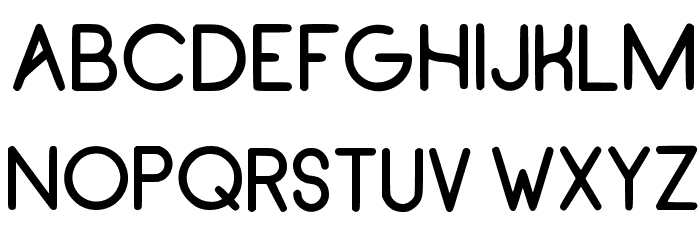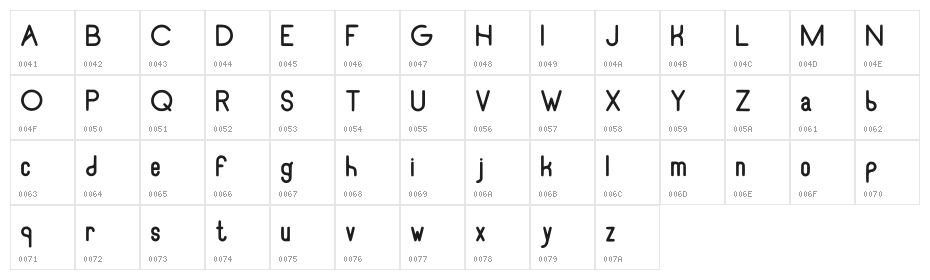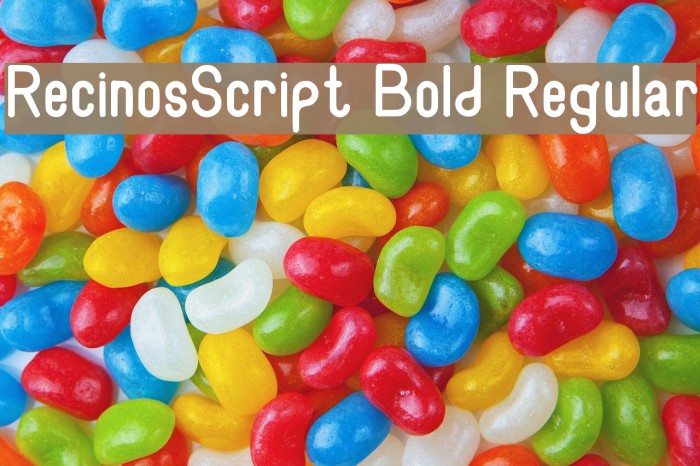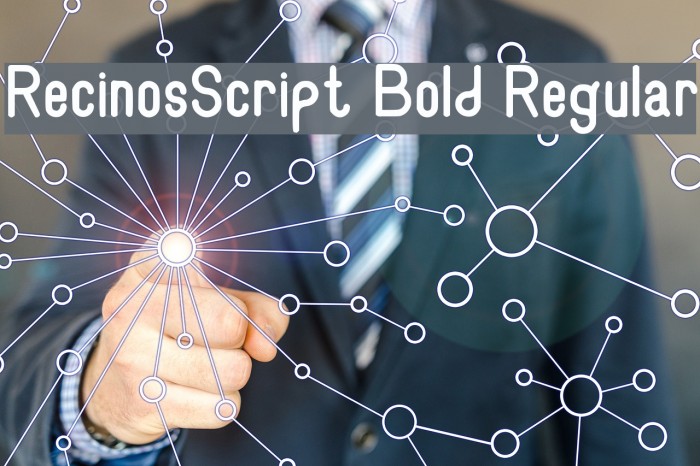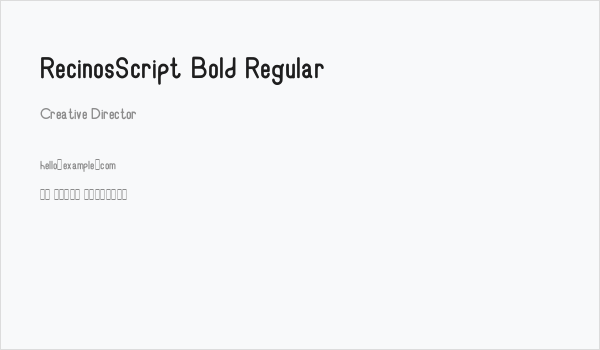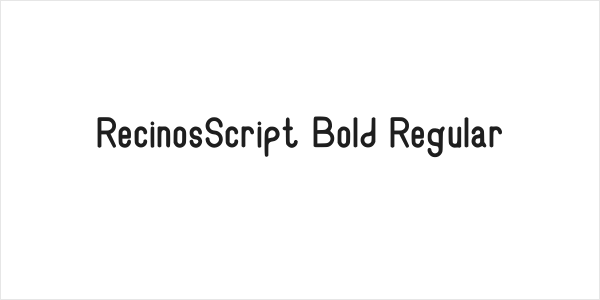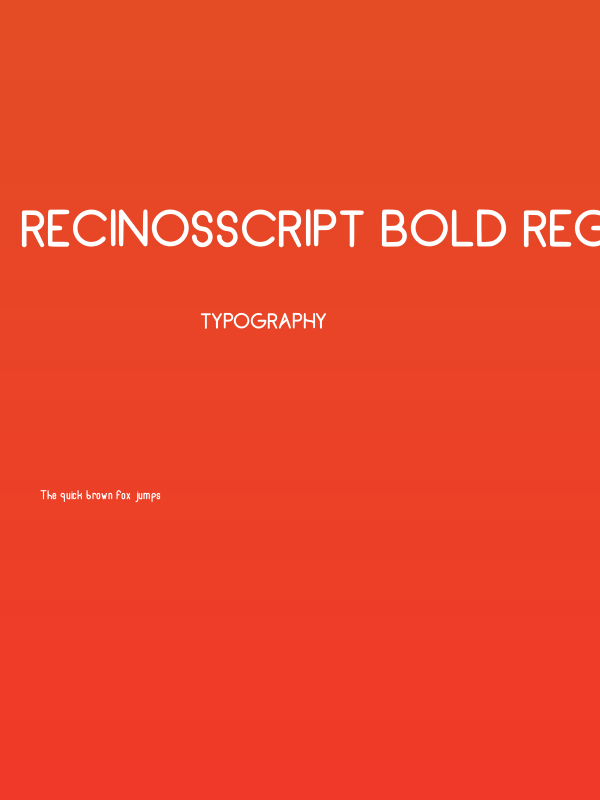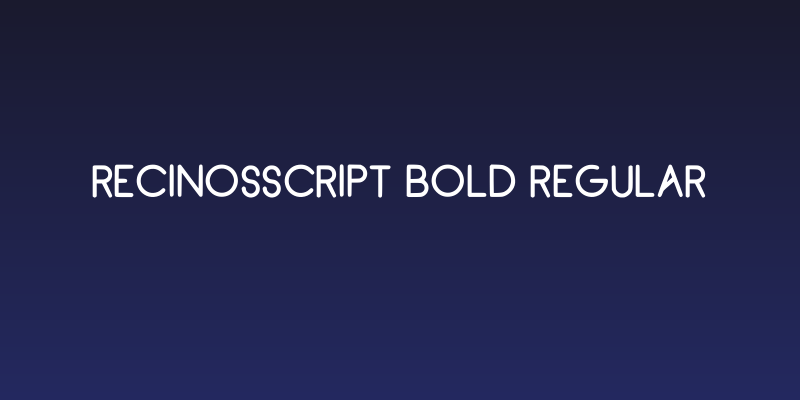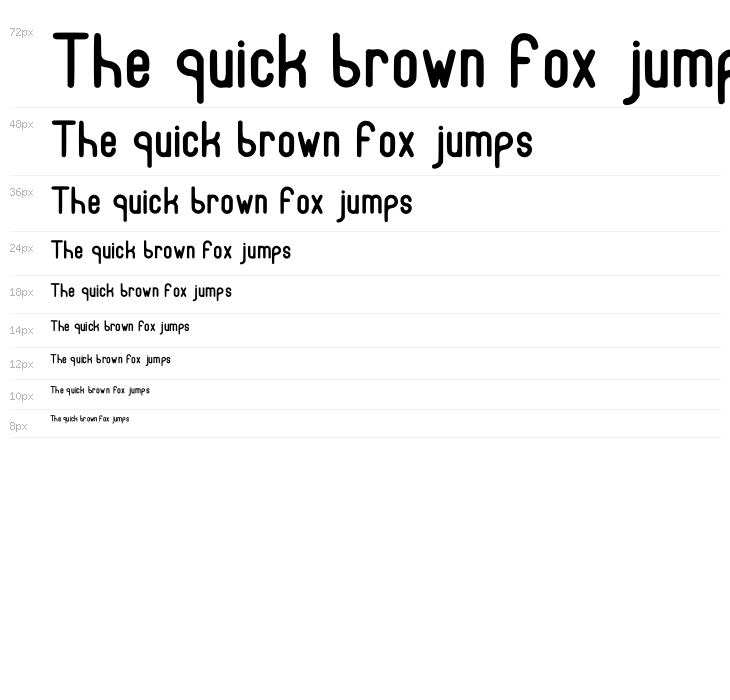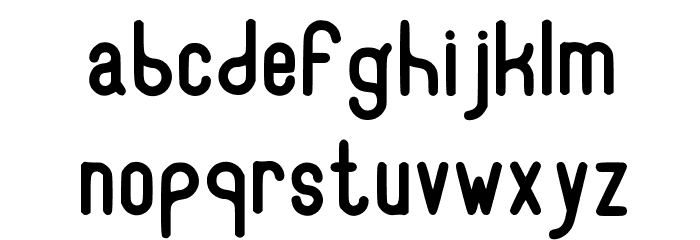
RecinosScript Bold Regular Font
RecinosScript Bold Regular Description
This font features a playful and rounded script style with a bold presence. The characters are smooth and slightly elongated, giving a sense of fluidity and movement. The uppercase letters are consistent in height, while the lowercase letters have a unique charm with their varied heights and rounded edges. The numbers and special characters maintain the same playful aesthetic, making the font versatile for various design needs. Its boldness ensures readability while adding a touch of personality to any text.